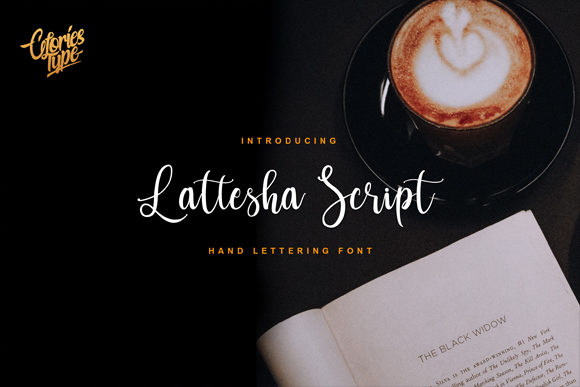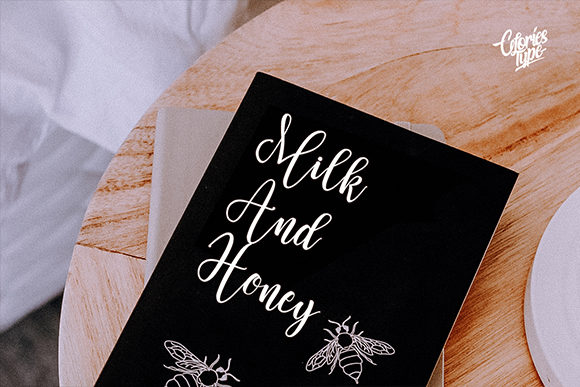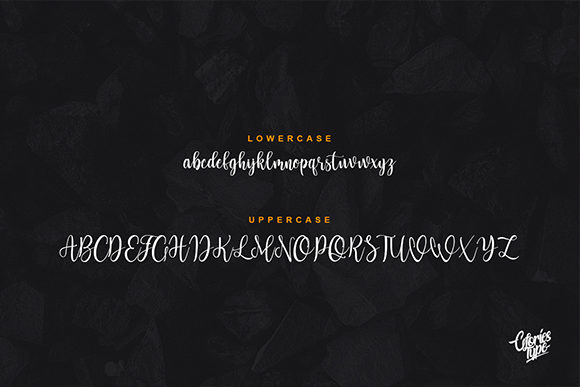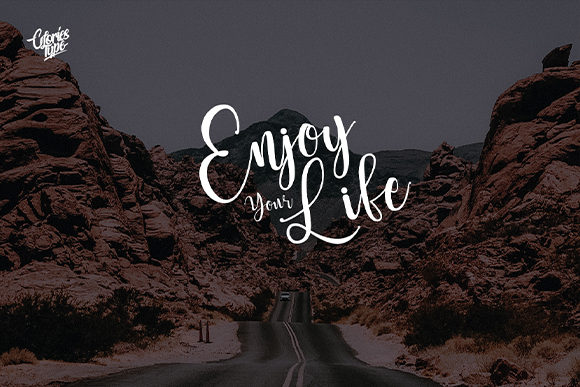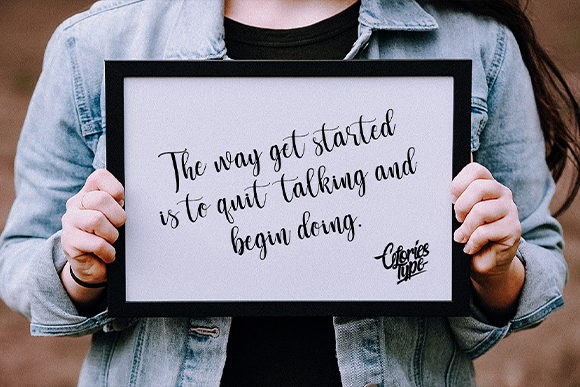
About Lattesha Script Font
Introducing Lattesha Script, a flowing handwritten font that exudes elegance and charm. With its elegant touch, Lattesha Script is perfect for a wide range of projects, from heartfelt wedding invitations to captivating quotes and everything in between. Prepare to be captivated by its distinct and timeless style, and let it elevate your creations to the realm of spectacular designs.
Lattesha Script’s flowing and graceful strokes create an air of sophistication and allure. Each letter dances with a natural ease, as if penned by a master calligrapher. Whether you’re crafting romantic wedding stationery or designing eye-catching social media graphics, Lattesha Script infuses your projects with an irresistible allure that leaves a lasting impression.
The font’s versatility makes it a versatile companion for various design endeavors. From luxurious branding to delicate stationery, and from editorial layouts to elegant logos, Lattesha Script’s distinct style enhances your creations with its timeless charm.
Imagine using Lattesha Script to create enchanting wedding invitations. Its elegant script becomes a work of art, setting the tone for a truly memorable celebration filled with love and beauty.
For branding and logos that demand a touch of sophistication and refinement, Lattesha Script becomes a symbol of timeless elegance. Its distinct style creates a brand identity that resonates with authenticity and grace.
In the realm of social media and quotes, Lattesha Script adds a touch of warmth and elegance to your posts. It captures attention with its beauty, inviting your audience to connect with your message on a deeper level.
In editorial layouts, Lattesha Script adds a poetic flair to your content, making it visually captivating and engaging.
In conclusion, Lattesha Script is more than just a font; it’s an embodiment of elegance and timeless beauty. With its flowing and distinct style, Lattesha Script becomes an invaluable asset for all your design projects. Embrace the enchanting allure of Lattesha Script and watch as your creations come alive with sophistication and grace. Let your imagination flourish in the flowing and elegant embrace of Lattesha Script, the handwritten font that defines timeless allure and creative brilliance.